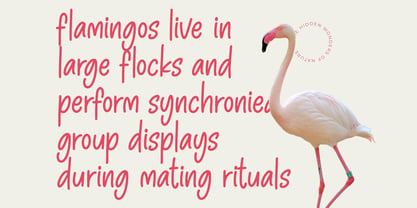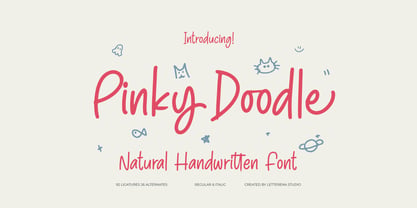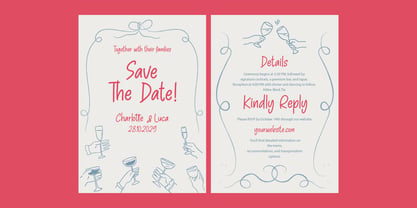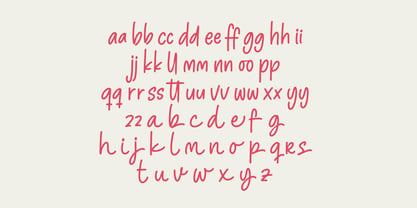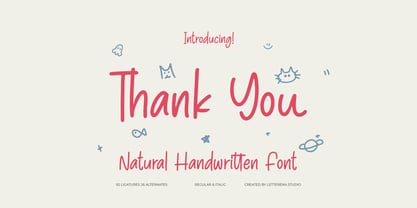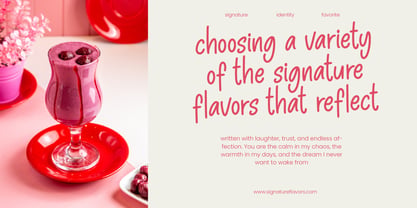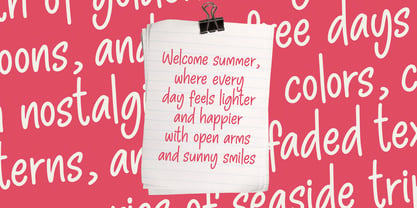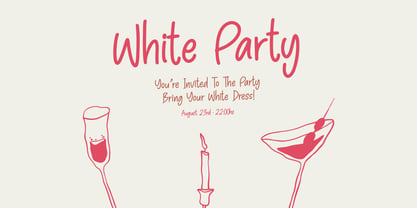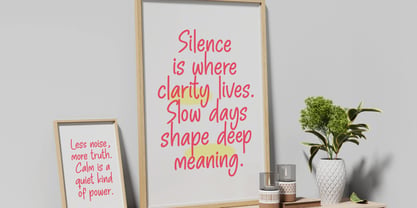
Pinky Doodle
The Pinky Doodle Font Family was designed by Heru Utama Putra and published by Letterena Studios. Pinky Doodle contains 2 styles and family package options. More about this family
Pinky Doodle is a fun, natural handwritten font with a friendly vibe and playful character strokes. The smooth curves and casual letterforms make it perfect for kids’ projects, cute branding, doodle-style graphics, social media posts, stickers, packaging, and anything that needs a lighthearted, approachable energy. The little doodle elements around the lettering reinforce its cheerful, creative personality.